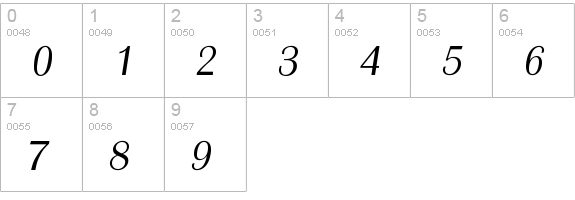
Grenoble-LightIta Font Details
The Grenoble-LightIta font is a delicate and elegant typeface that exudes sophistication and charm. Its slender and graceful letterforms make it perfect for adding a touch of refinement to any design project. Whether you're creating invitations, branding materials, or editorial layouts, Grenoble-LightIta will elevate your work with its timeless appeal. Best of all, Grenoble-LightIta is available for free download at FontsMarket.com. This means you can easily access this beautiful font without having to spend a dime. Don't miss out on the opportunity to enhance your designs with the exquisite Grenoble-LightIta font. Download it today and elevate your creative projects to new heights.